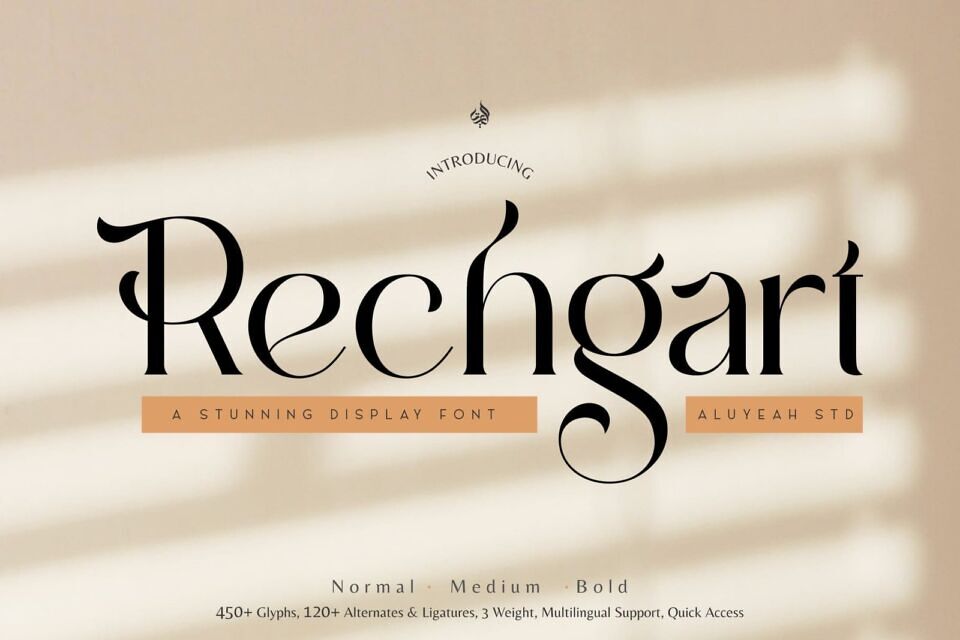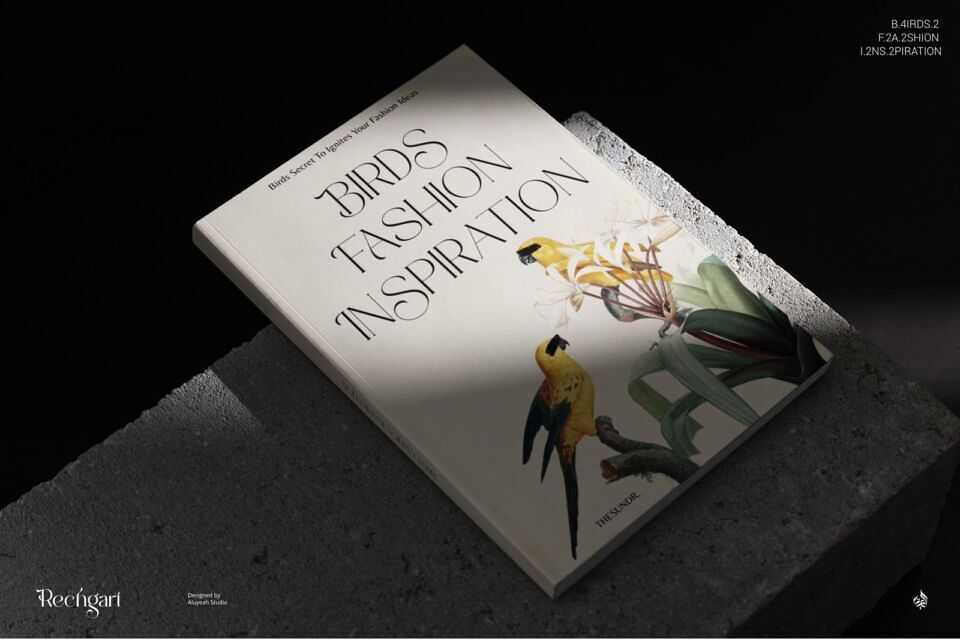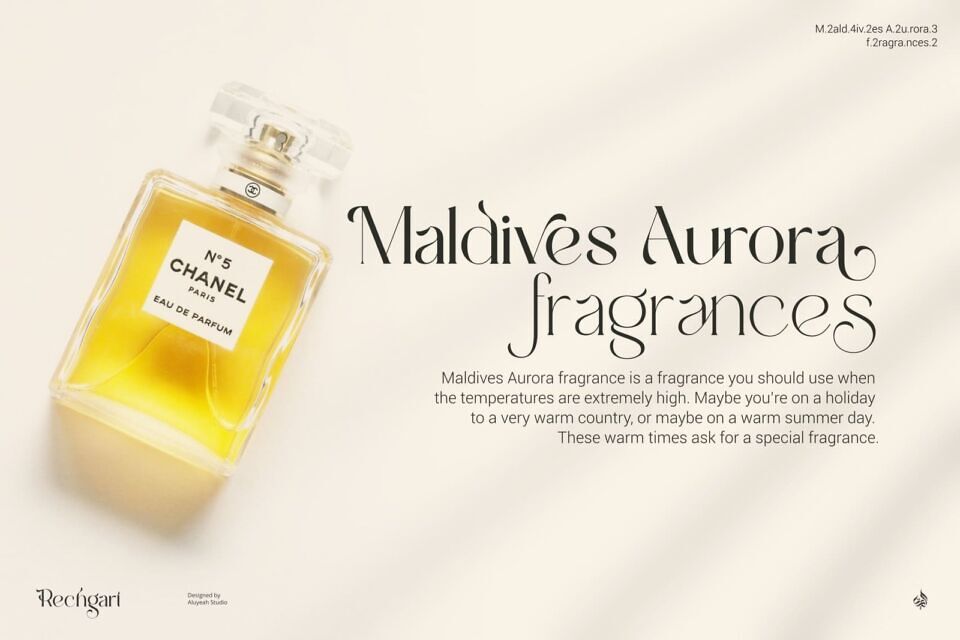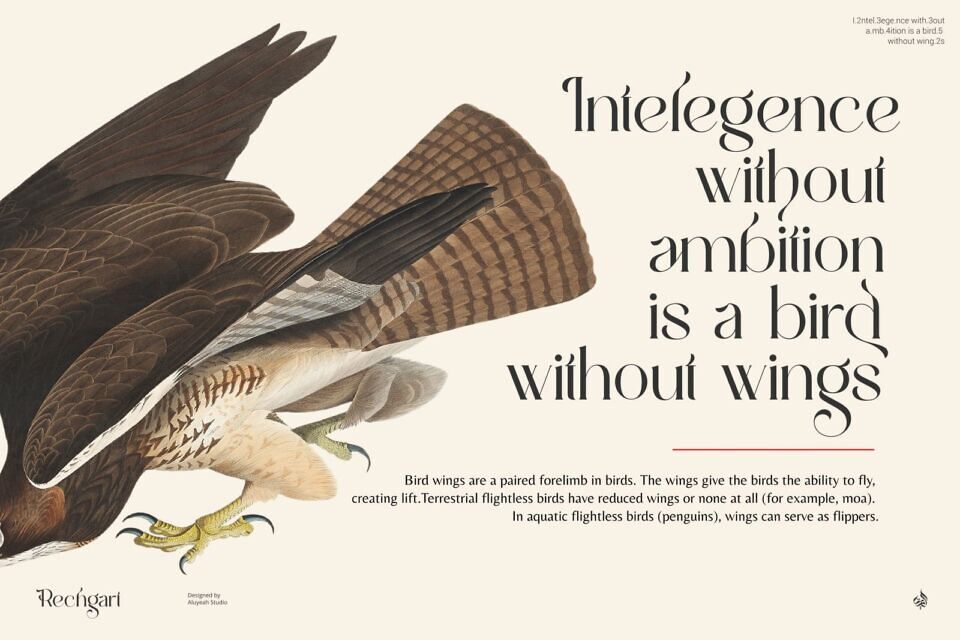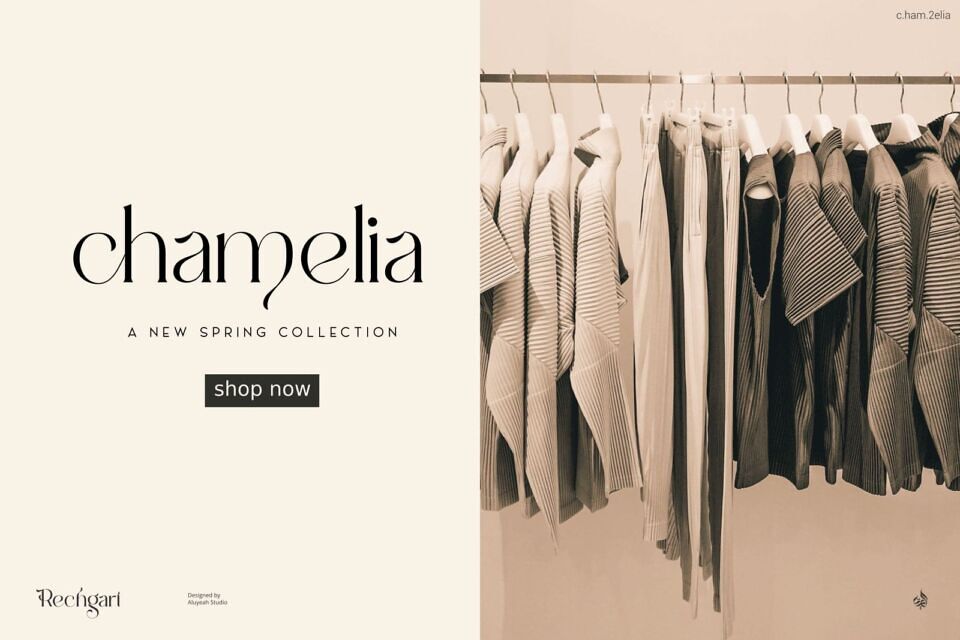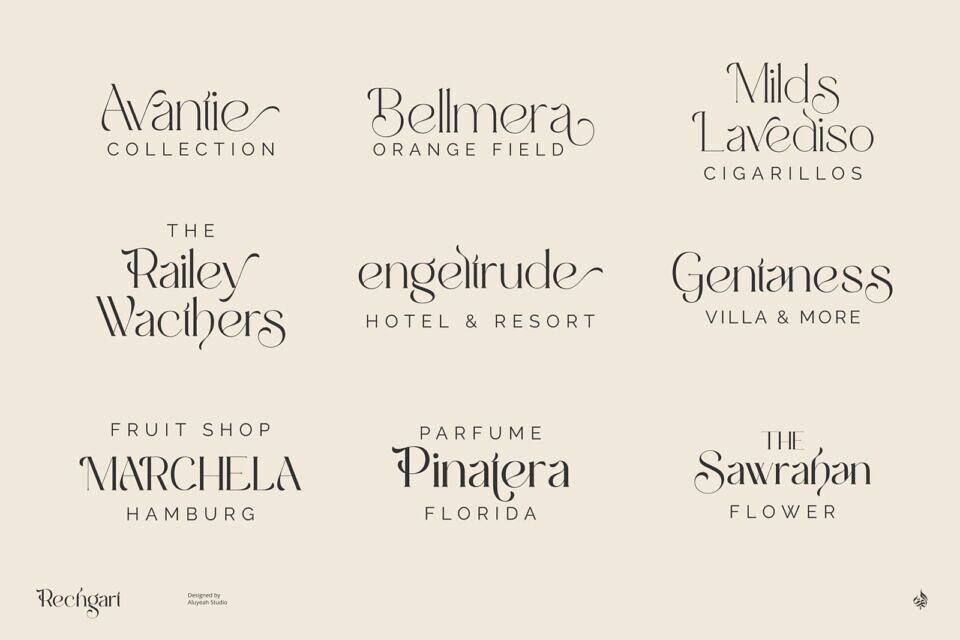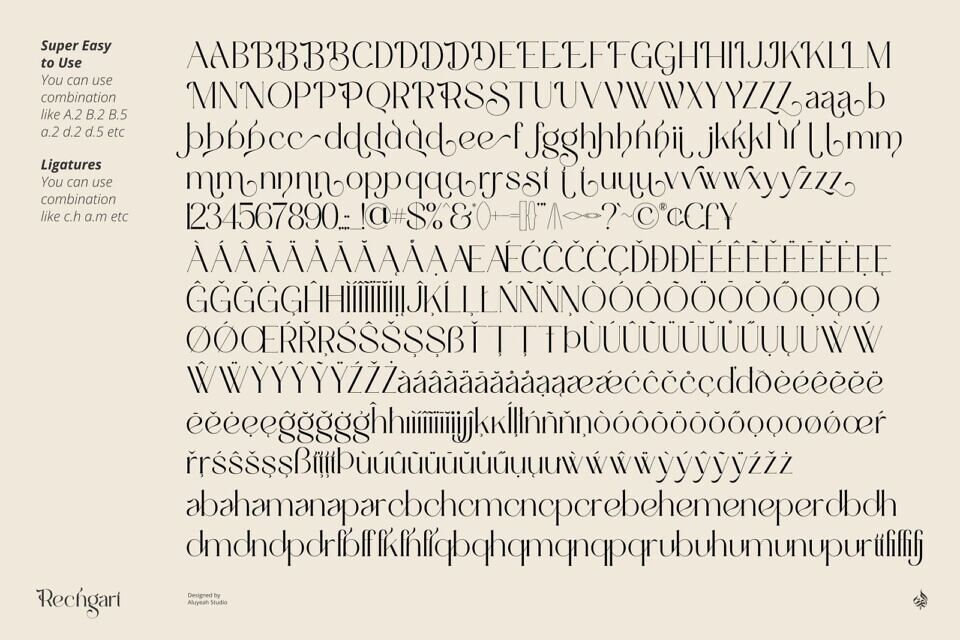
Rechgart Font
Introducing Rechgart is a stunning display font inspired by the exquisite beauty of bird’s feathers. With 120 and more alternates and ligatures, this font offers endless possibilities for your designs.
Available in 3 weights with quick access to alternate characters, you can quickly and easily find the perfect match for your project. It will surely add an authentic, beauty, magnificent, unique touch to any design!